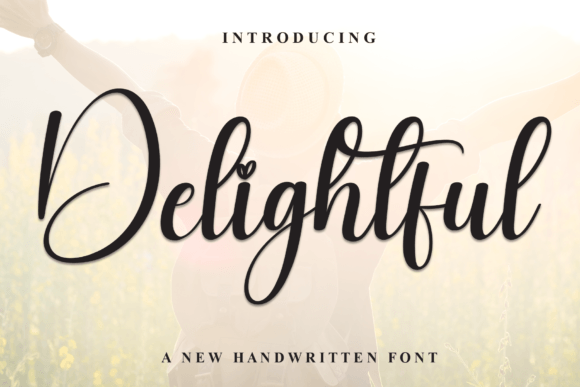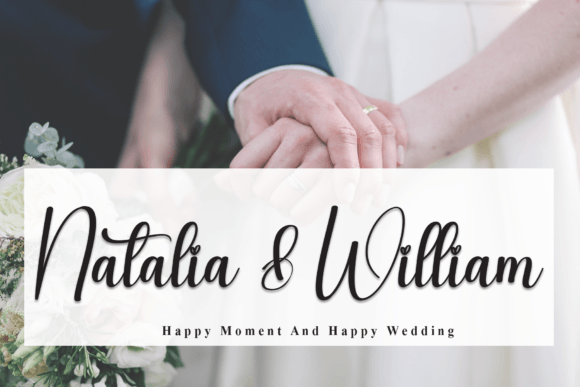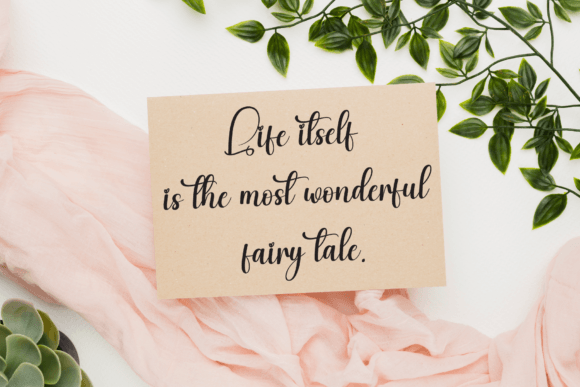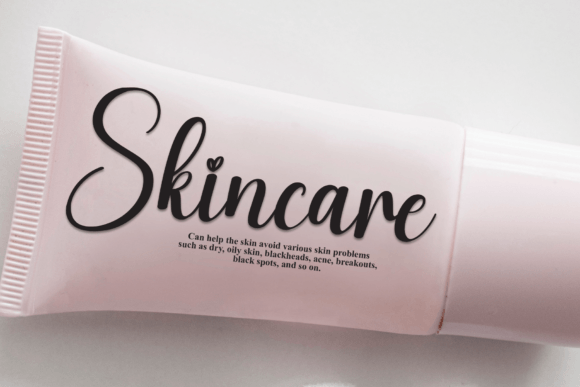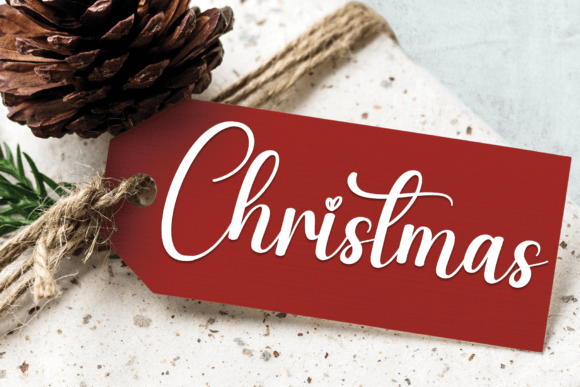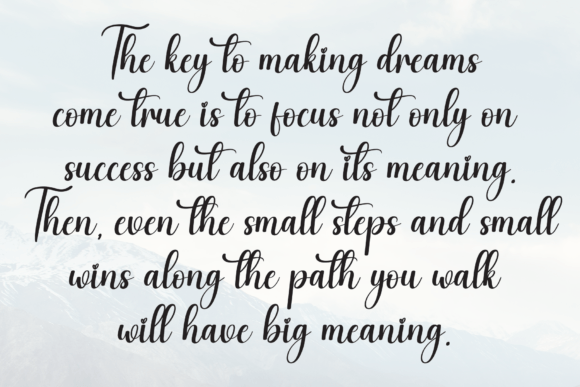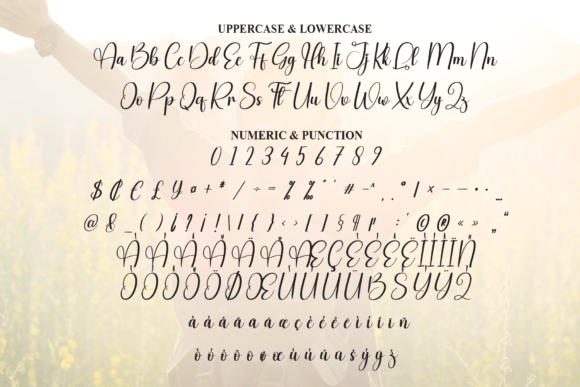
Unleashing the Magic of Handwritten Charm
As a designer, there’s nothing quite like the thrill of creating something truly special – the moment when a project comes together, and you know you’ve nailed it. For me, that moment often starts with the perfect font. And one font that always delivers is the Delightful Font.
With its elegant, flowing curves, Delightful Font is the perfect choice for invitations, logos, and branding. Its delicate strokes bring a warmth and creativity to your projects that’s hard to find elsewhere. Whether you’re designing a wedding invitation or a company logo, Delightful Font adds a personal and sophisticated touch that sets your work apart.
For designers, Delightful Font is a valuable tool in our toolkit. It’s a versatile font that’s perfect for a range of projects, from formal events to personal branding. And with its effortless elegance, it’s a font that’s sure to delight both you and your clients.
- Unique Characteristics: Delightful Font features a unique blend of modern and vintage elements, making it perfect for creating visually appealing designs.
Review of Delightful Font
Overall, I was pretty excited to dive into the world of Delightful Font, and while it has its charm, there are some areas where it falls short. ✨
- One thing that stands out is the playful and whimsical feel of the font. It’s perfect for adding a touch of personality to your designs.
- Another great aspect is the wide range of weights and styles available, making it easy to find the perfect fit for your project.
- The font also comes with a lot of ligatures and swashes, which can add a nice touch of elegance to your typography.
However, there are some limitations that I think are worth mentioning. ⚠️
- One major issue is that the font can be quite difficult to read at smaller sizes. It’s not ideal for body text or headlines that need to be read quickly.
- Another limitation is that the font doesn’t support many non-Latin languages. This can be a problem for designers who need to work with clients from different parts of the world.
Overall, I think Delightful Font is a solid choice for designers who want to add a bit of whimsy to their work. However, it’s not a one-size-fits-all solution, and you may need to consider other fonts for certain projects.
Delightful Font is perfect for:
- Business cards and brochures
- Home decor and furniture labels